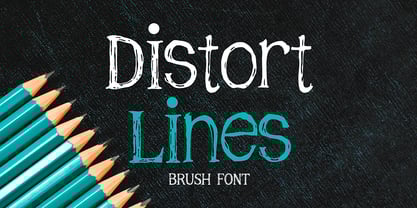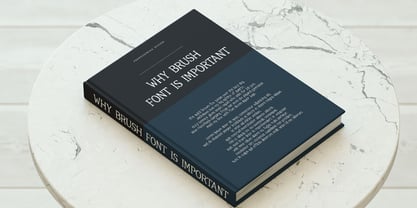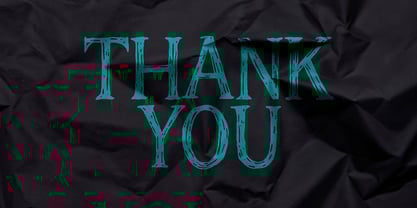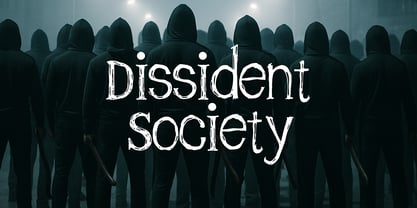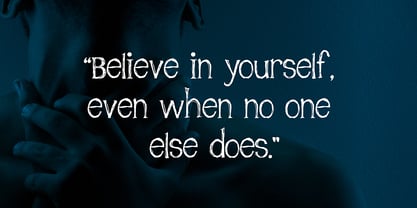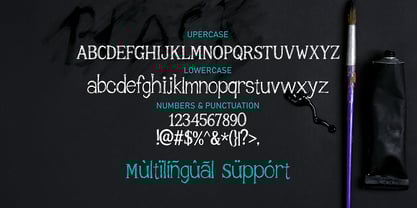
Distort Lines
by Sipanji21
The Distort Lines Font Family was designed by Sipanji and published by Sipanji21. Distort Lines contains 1 styles. More about this family
Distort Lines is a handcrafted brush font with a uniquely distorted texture that brings bold energy and personality to your designs. Its rough edges and expressive strokes make it a perfect choice for headlines, branding, posters, or any project that needs an artistic and unconventional touch. With high readability and strong visual impact, Distort Lines strikes a balance between creativity and functionality, suitable for both print and digital media.
Designers: Sipanji
Foundry: Sipanji21